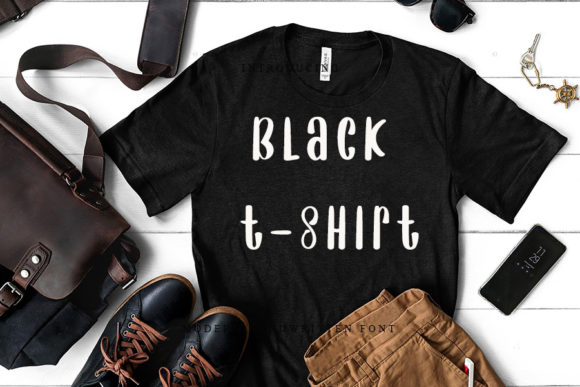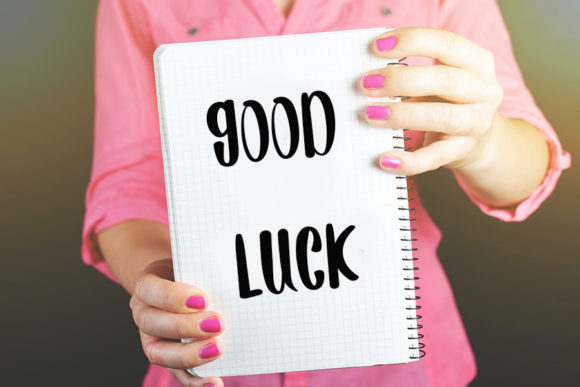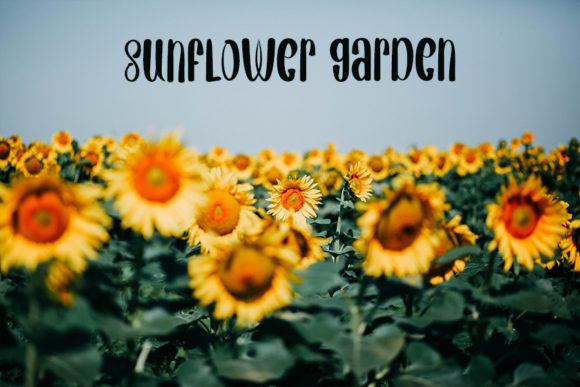
Introduction to Shopee Font
Shopee is a fun and trendy handwritten font that embodies playfulness and authenticity.
Key Features of Shopee Font
Why Choose Shopee Font?